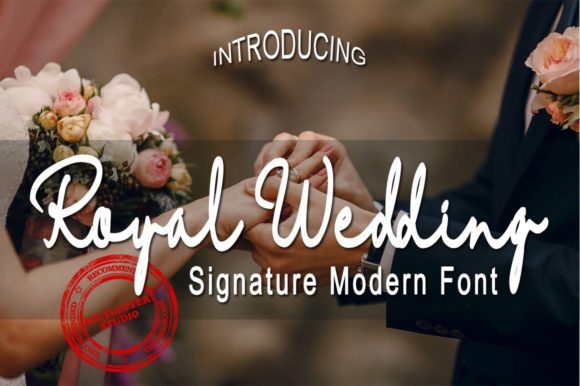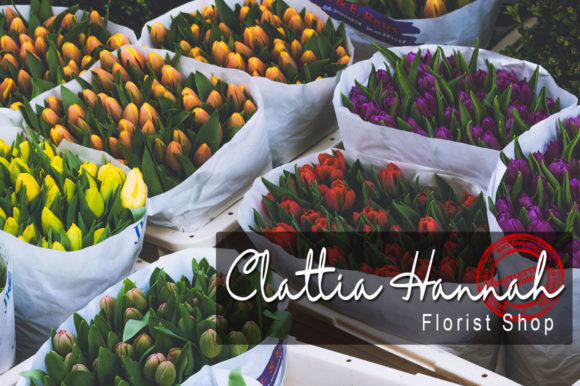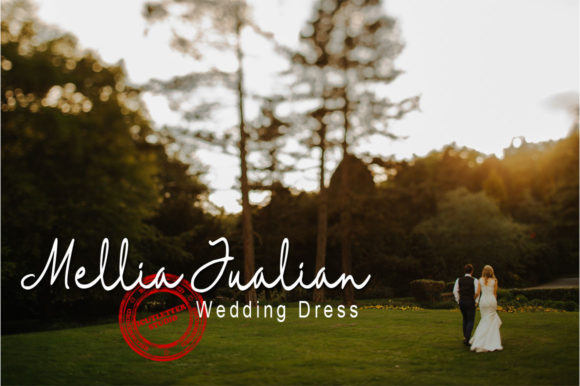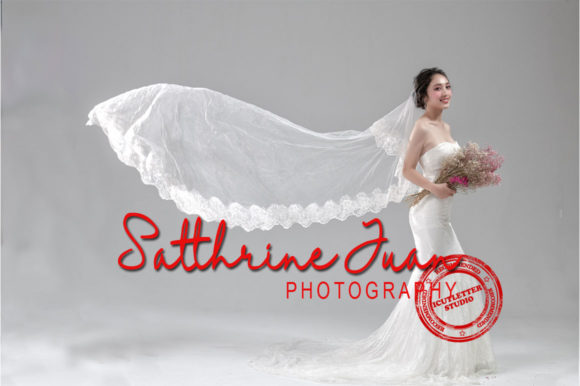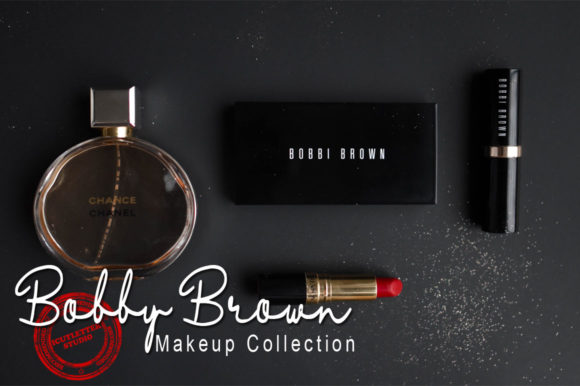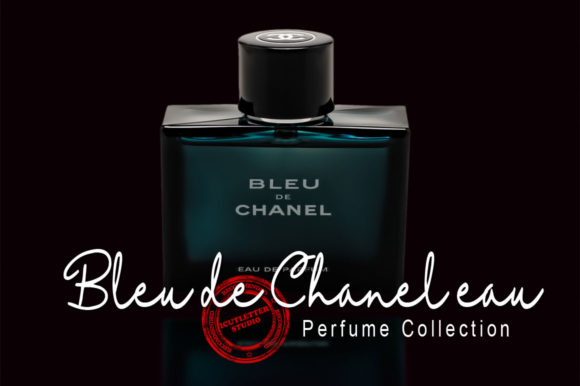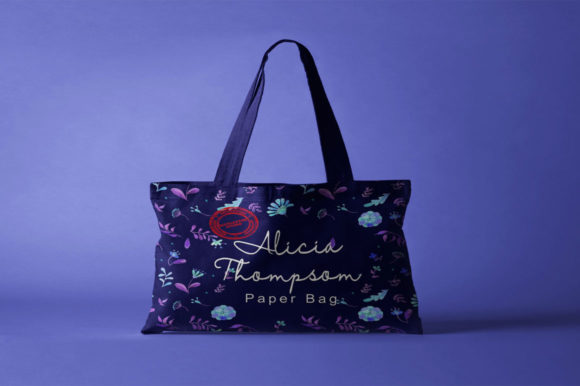
Royal Wedding Font
About Royal Wedding Font
The Royal Wedding is a handwritten signature font. It has a modern style with a striking, yet elegant touch.
It’s perfect for quotes, logos, blog headers, posters, branding, fashion, apparel, letters, invitations, stationery, and much more!